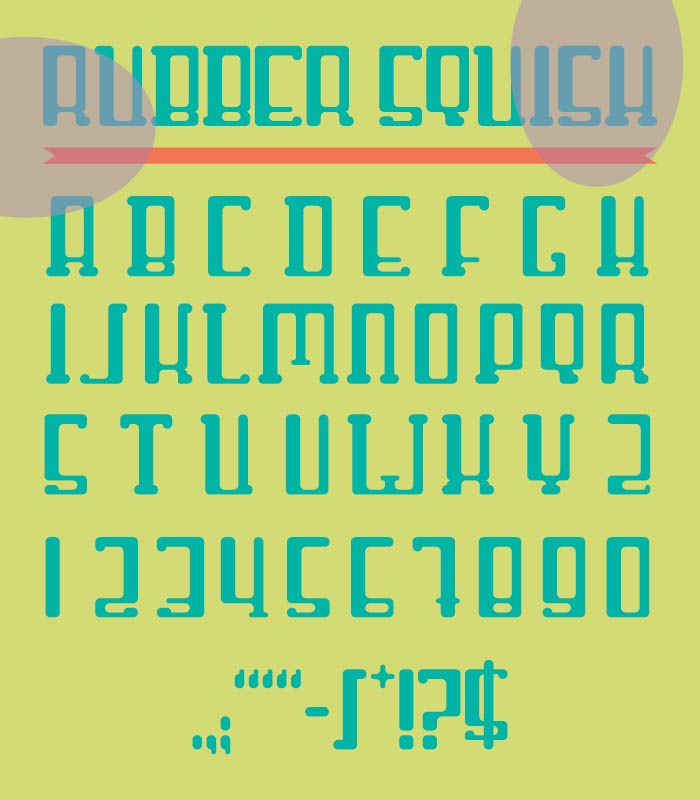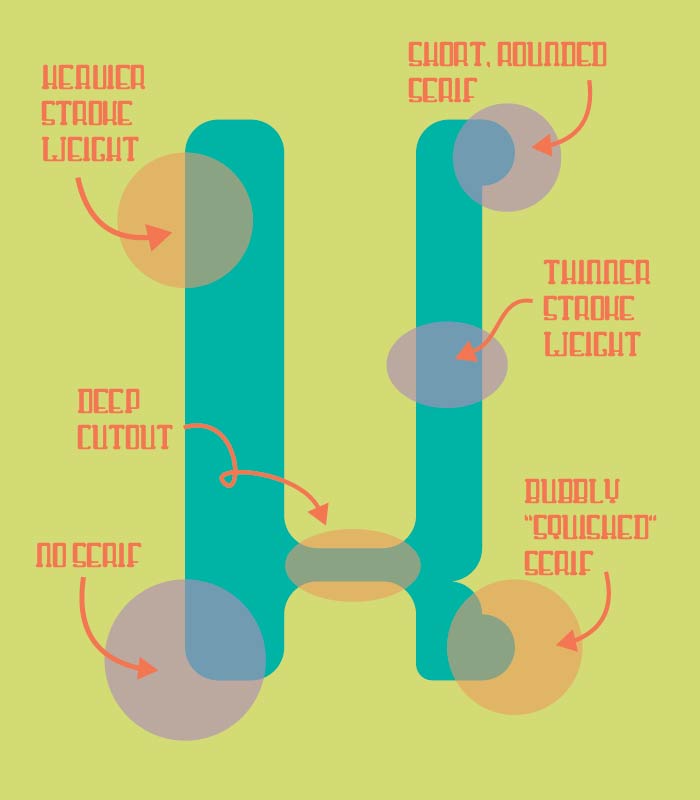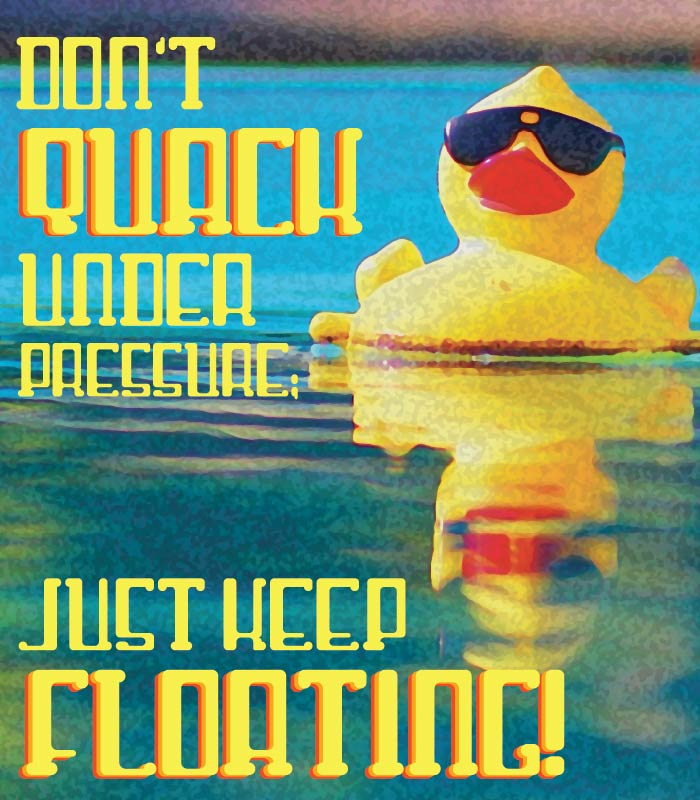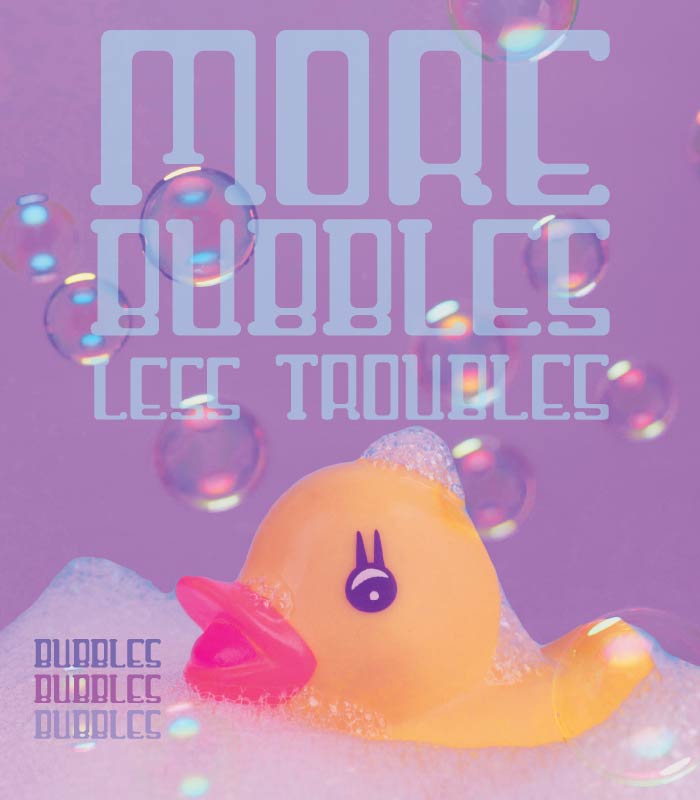
• This typeface has a structured and mechanical look, characterized by bold, blocky letterforms with rounded edges and deep, distinct cutouts. I would also say this is a mix between a serif and sans serif typeface. The letters are constructed using repeated modular elements giving it that highly structured appearance. The rounded corners and serifs however, soften the rigid design, making it appear, modern, retro, and quite friendly. Great to use in a bigger type size.